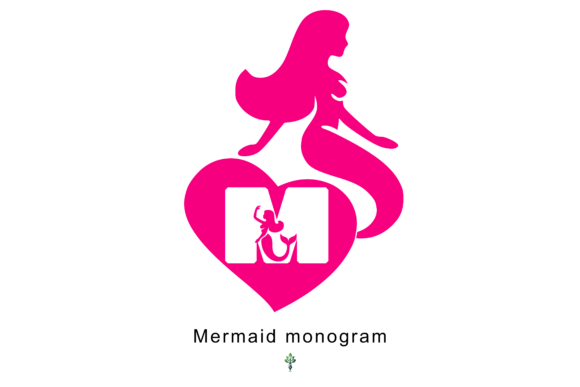
Mermaid Monogram Font: A Whimsical Typeface for Creative Projects
Welcome to the mesmerizing universe of the Mermaid Monogram Font, an exquisite blend of meticulously designed alphabets. Embellished with stunning craftsmanship, this standout typeface personifies the limitless boundaries of artistic freedom. It infuses an enchanting charm into your projects, making them nothing less than a visual treat. Experience the magic of this extraordinary font and let your creativity surge with its captivating allure.
Key Features of Mermaid Monogram Font
The Mermaid Monogram Font boasts an array of impressive features that make it a must-have for designers and artists. Some of its notable characteristics include:
- Unique Monogram Design: Each letter is carefully crafted to create a distinctive monogram that exudes elegance and sophistication.
- Intricate Details: The font is adorned with intricate details that add a touch of whimsy and playfulness to your designs.
- Versatile: The Mermaid Monogram Font can be used for a wide range of projects, from branding and advertising to packaging and digital media.
- High-Quality: The font is designed with precision and attention to detail, ensuring that it looks stunning in various sizes and resolutions.
In conclusion, the Mermaid Monogram Font is a stunning typeface that offers a world of creative possibilities. With its unique monogram design, intricate details, and versatility, it’s the perfect addition to any design project. Whether you’re a designer, artist, or DIY enthusiast, this font is sure to inspire your creativity and take your designs to the next level.